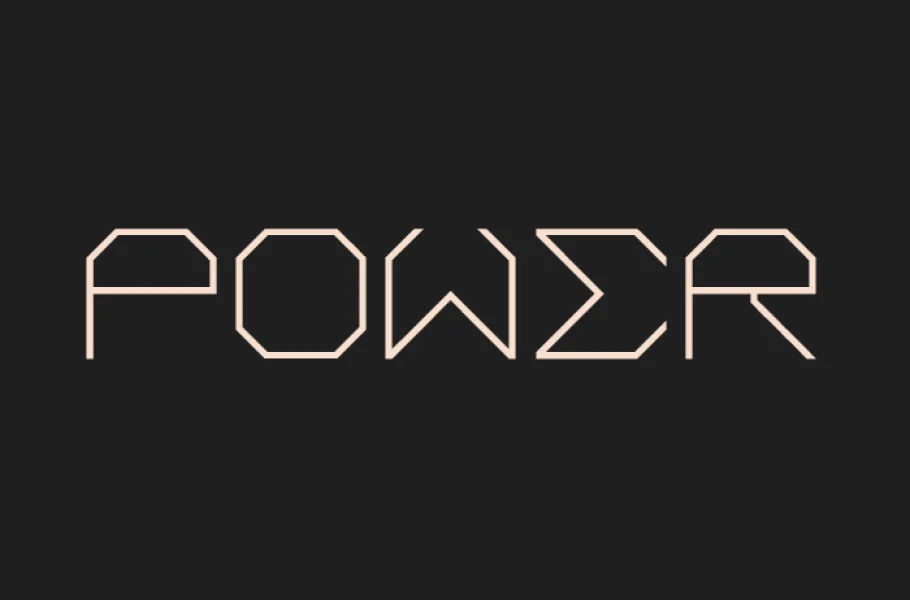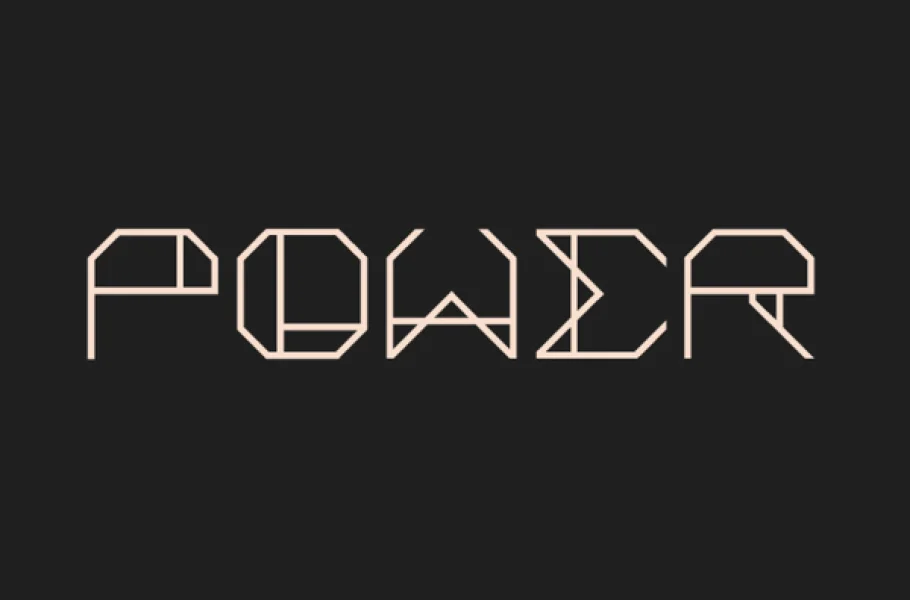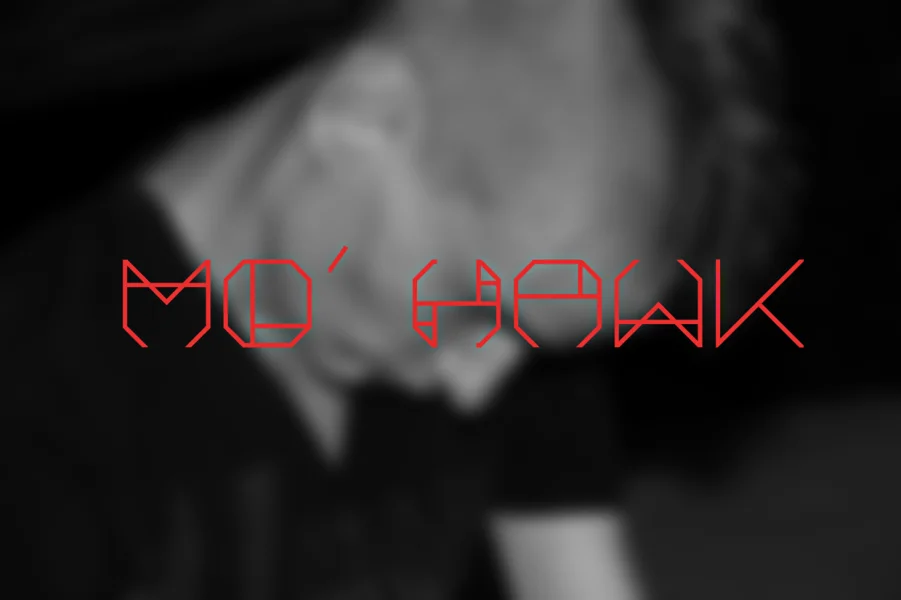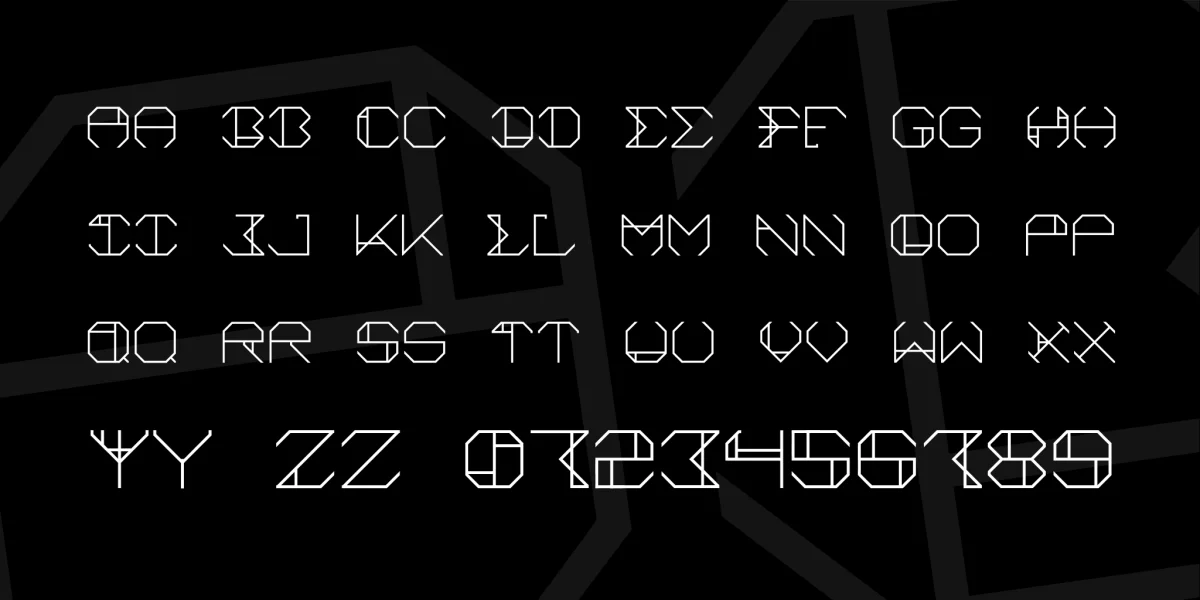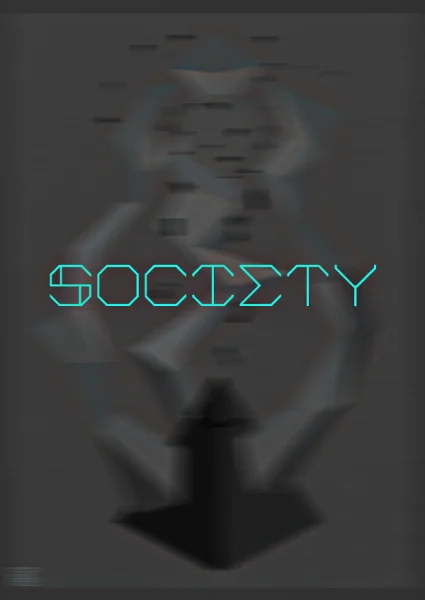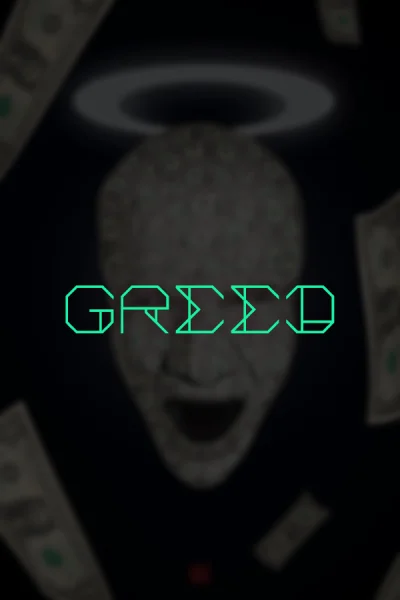
Here's the first font I tried to realize. Aurora is a font inspired from Sci-Fi movies and the world of video gaming.
This font can be used for titles and typography works, about technology, industry, futuristic subjects etc. I hope that you'll enjoy it! This is the first time I tried to make a font, that's why there is only the alphabet and numbers. You can use the font for non-commercial or commercial use. I just ask you to send me a link to your work, I will be pleased to see it!